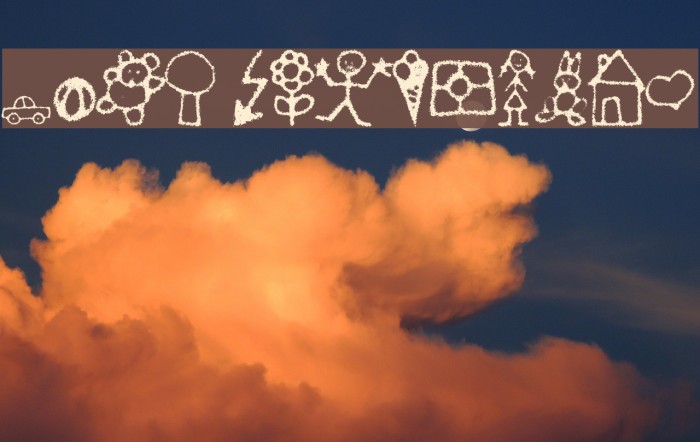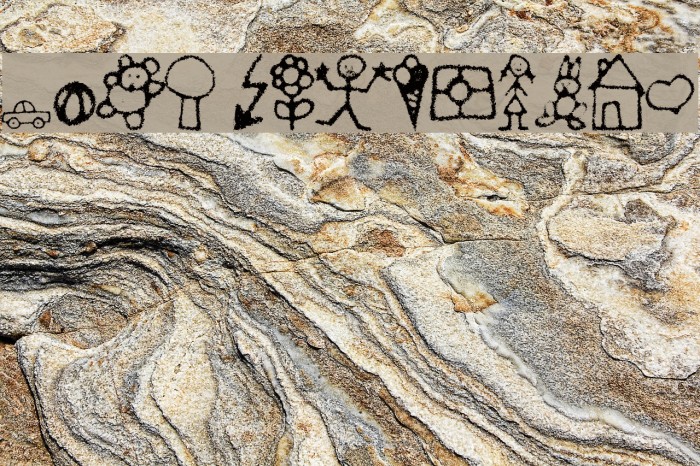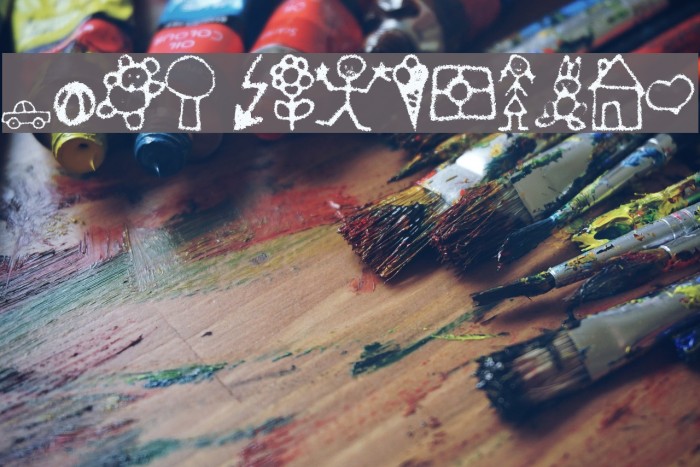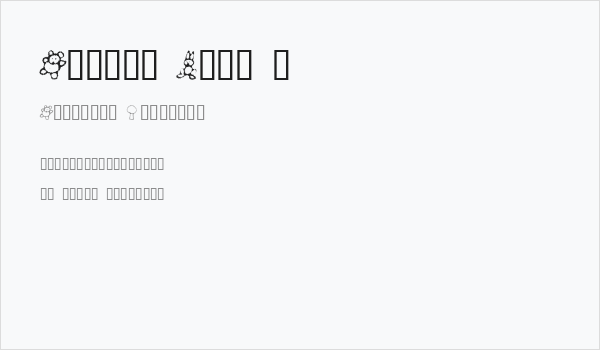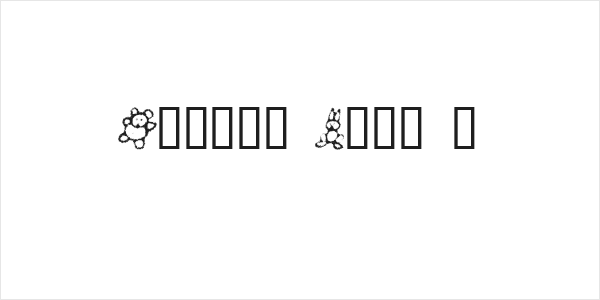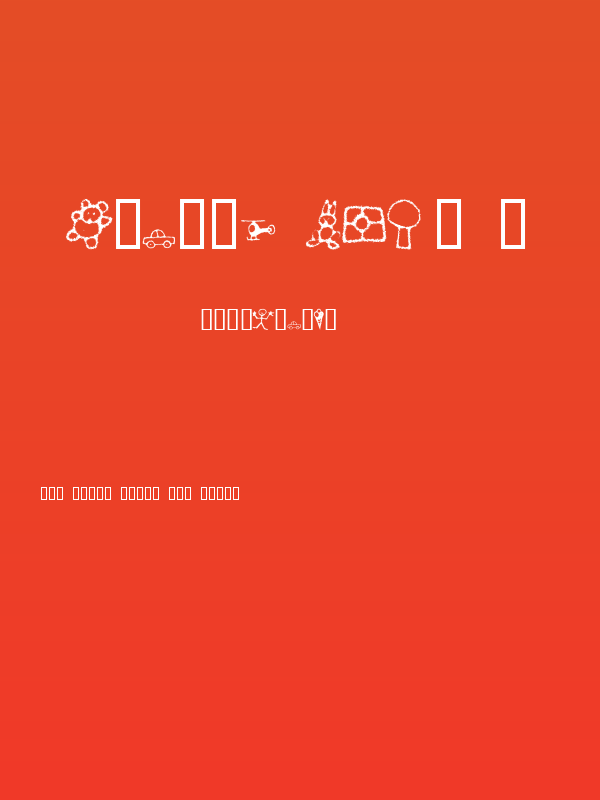
Crayon Kids 1 Font
Crayon Kids 1 Description
This playful and whimsical font is designed to mimic the carefree and imaginative drawings of children. Each character is represented by a unique doodle, such as flowers, stick figures, and simple shapes, evoking a sense of innocence and creativity. The strokes are uneven and textured, resembling crayon or chalk drawings, which adds to its charm and authenticity. This font is perfect for projects that aim to capture the essence of childhood, playfulness, and creativity. It is not suitable for formal or professional documents but excels in settings where a lighthearted and fun atmosphere is desired.
| Use Case | Logos, Invitations, Children's Books |
| Proposed Projects | Ideal for children's books, educational materials, playful branding, and creative invitations. |